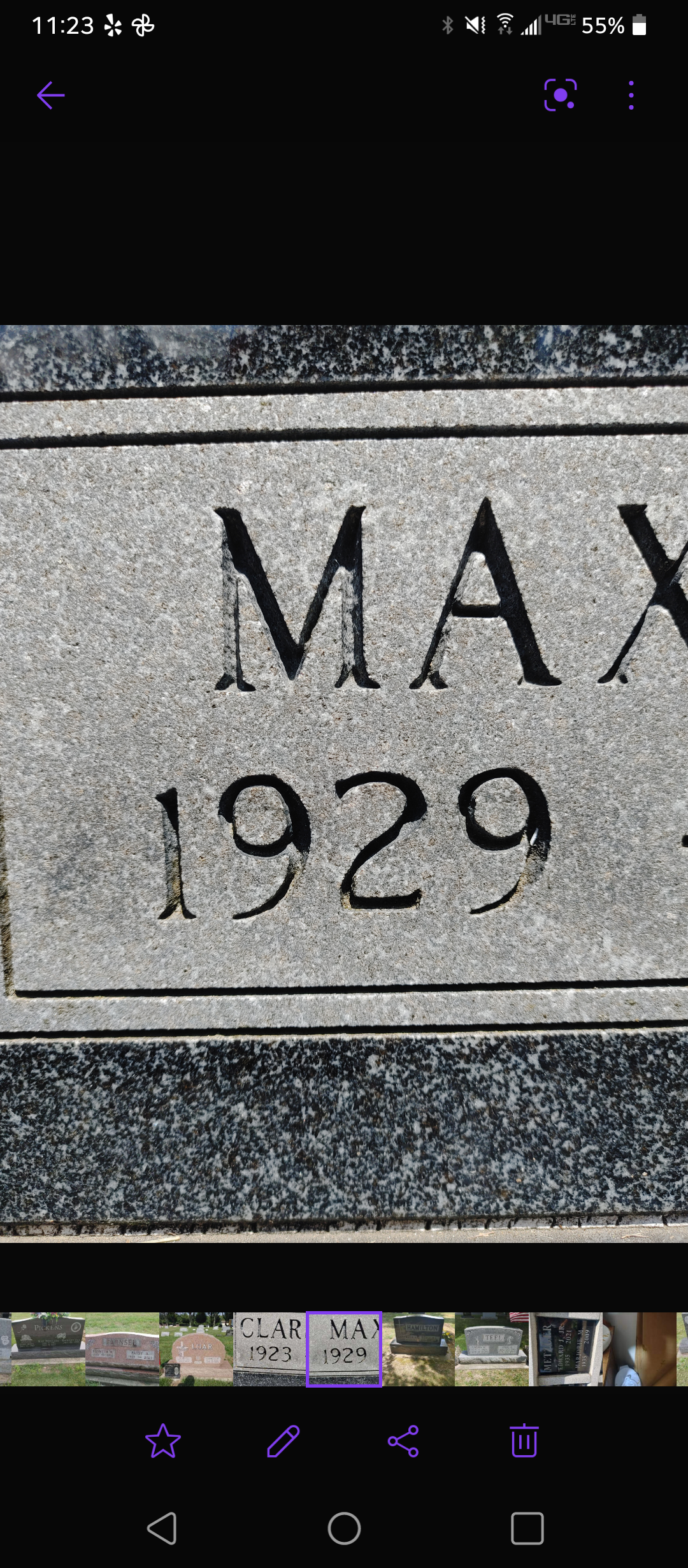
Numbers font..anybody know this one?
Hello, this looks like the Spacerite Modified Roman was used. Because it was always hand-cut after transferring the rubbing to the stencil, the serifs and other features can vary quite a bit like this.
The MLC has a digital version of the font available, but because of the variation of hand-cutting techniques used, there will be some differences to what is on this memorial: MLC Modified Roman SR.